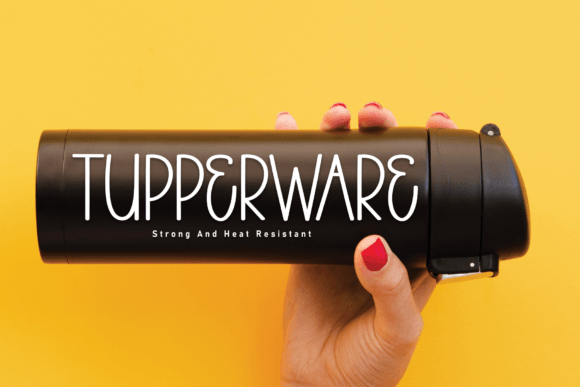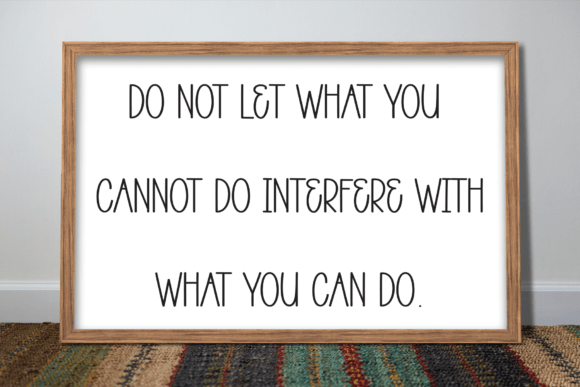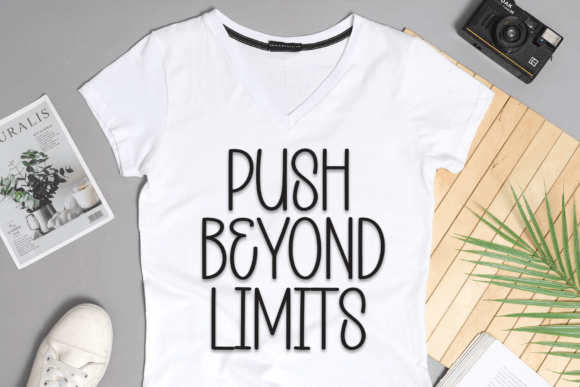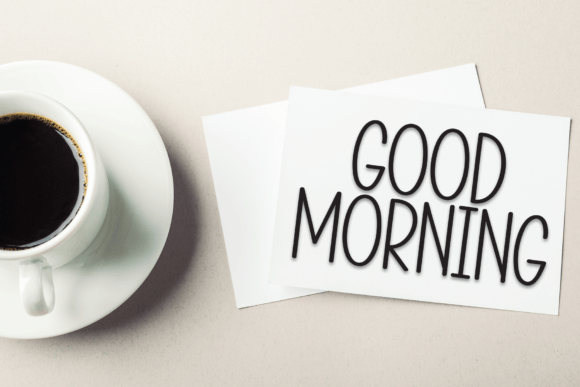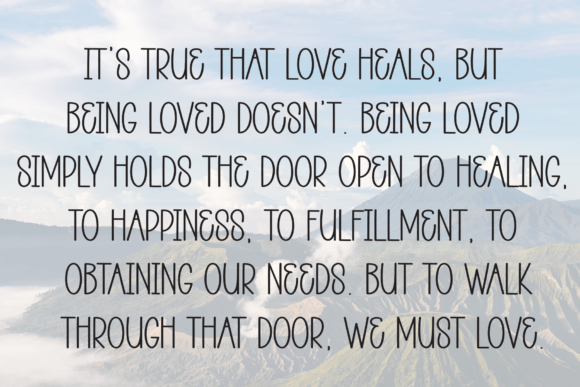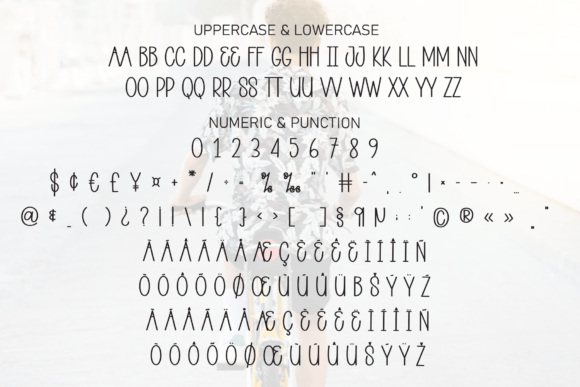
Discover the Charm of Goes Riding Font: Elevate Your Designs with a Touch of Whimsy
This delightful handwritten display font has a way of infusing charm and warmth into any design project. Its sweet and friendly characteristics make it perfect for wedding invitations, greeting cards, and any other project that needs a dash of enjoyment. In this article, we’ll dive into the world of Goes Riding Font, exploring its features, how to use it, and some similar fonts you might love.
An Honest Review of Goes Riding Font
- ✨ Playful yet elegant: Goes Riding Font strikes the perfect balance between playfulness and sophistication, making it suitable for a wide range of design projects.
- ✅ Easy to read: Despite its whimsical nature, this font remains clear and easy to read, even at smaller sizes.
- 💕 Emotional connection: The font’s friendly and approachable vibe helps create an emotional connection with your audience, making your designs more relatable and engaging.
While Goes Riding Font is an excellent choice for many design projects, there are a few things to keep in mind:
- 🤔 Limited use in formal contexts: Due to its playful nature, Goes Riding Font might not be the best fit for very formal or corporate designs.
- ⚠️ Overuse can be overwhelming: As with any font, using Goes Riding Font excessively can make your design feel cluttered and overwhelming.
The Backstory of Goes Riding Font
Goes Riding Font was designed with the intention of creating a typeface that would bring joy and whimsy to design projects. The designer aimed to craft a font that was both elegant and playful, perfect for wedding invitations, greeting cards, and other projects that require a touch of personality.
Q: Is Goes Riding Font suitable for body text?
A: While Goes Riding Font is beautiful, it’s best suited for display text or headings. Its playful nature can make it difficult to read in large blocks of body text.
Q: Does Goes Riding Font come with OpenType features?
A: Yes, Goes Riding Font includes OpenType features, such as glyphs and stylistic alternates, which can add more personality to your text.